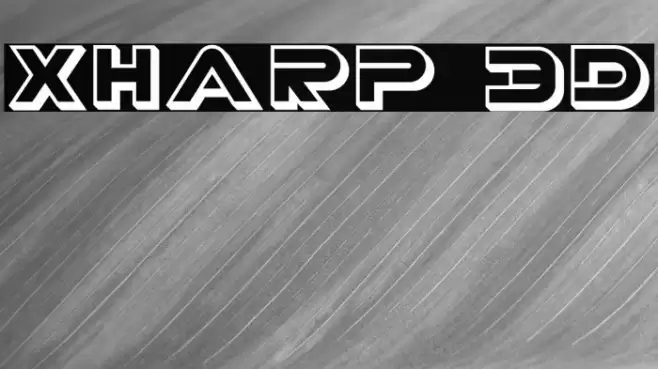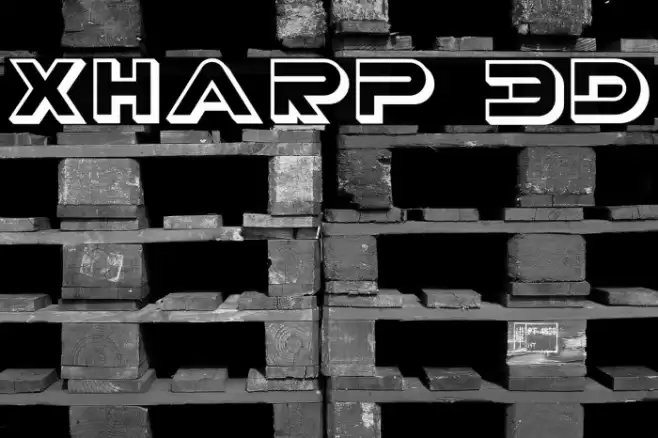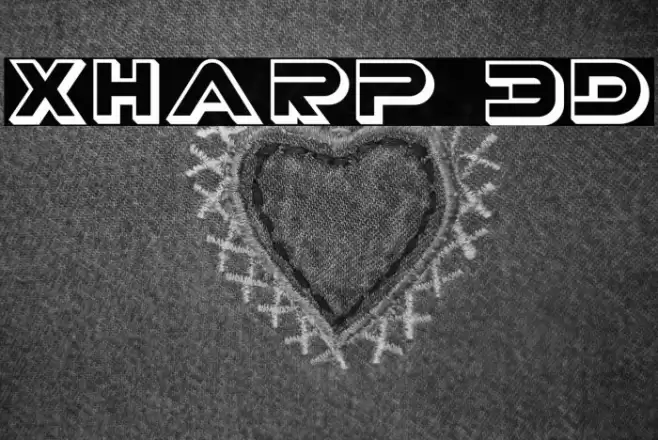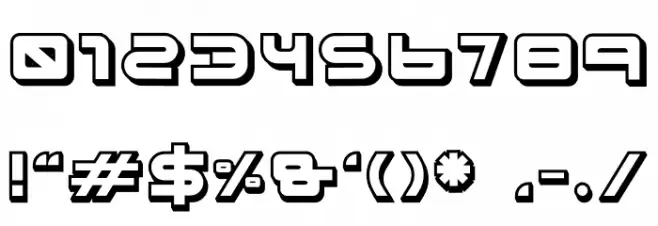
XHARP 3D Font
XHARP 3D Description
This font features a bold, futuristic design with a three-dimensional effect that gives each character a sense of depth and structure. The letters are outlined, creating a hollow appearance that enhances the 3D illusion. The geometric shapes are consistent throughout, with sharp angles and clean lines that contribute to its modern aesthetic. The font maintains uniformity in height and width, ensuring a balanced look across all characters. Its unique style makes it stand out, ideal for projects that require a strong visual impact.
A bold, 3D geometric font with a futuristic and modern aesthetic from Uncategorized fonts.
- Proposed Projects: Ideal for sci-fi themed designs, video game titles, posters, and branding that requires a modern and impactful look.